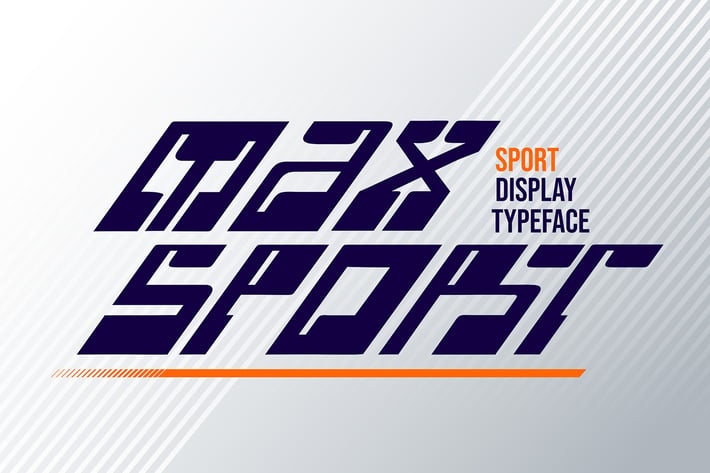
Max Sport - Sporty Display Font
The Max Spor font is a sporty-themed font with unique characteristics. It is perfect for use in a variety of design projects and materials such as posters, magazines, etc. This font exudes a dynamic and energetic feel, making it a great choice for sports-related designs and projects. With its bold lines and clear lettering, the Max Spor font is sure to grab attention and make a lasting impact.